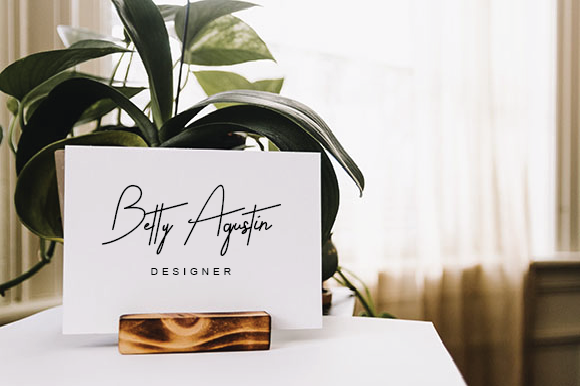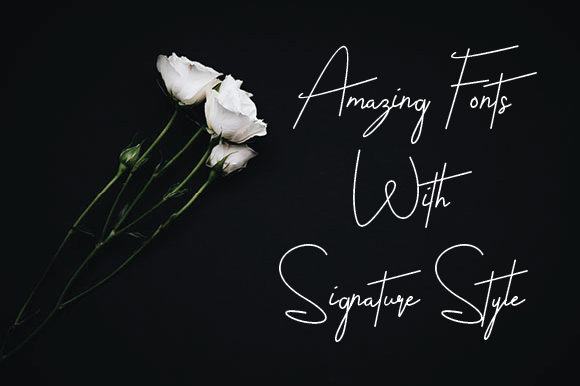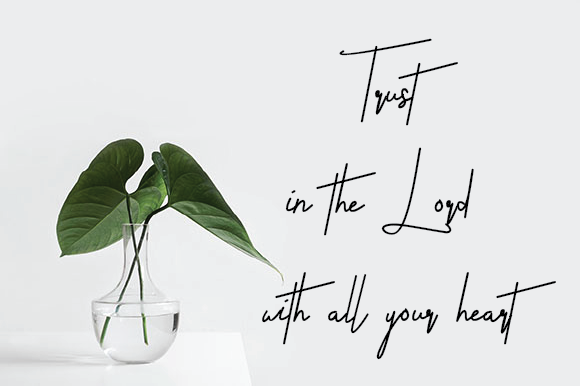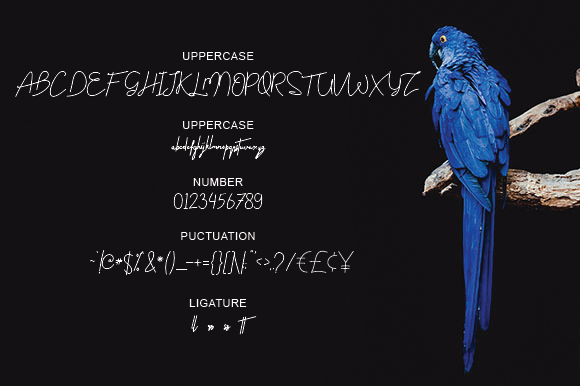
Centhil Font
About Centhil Font
Centhil is a light and unique script font with a bold twist. It will add an authentic and sophisticated spark to any design project.